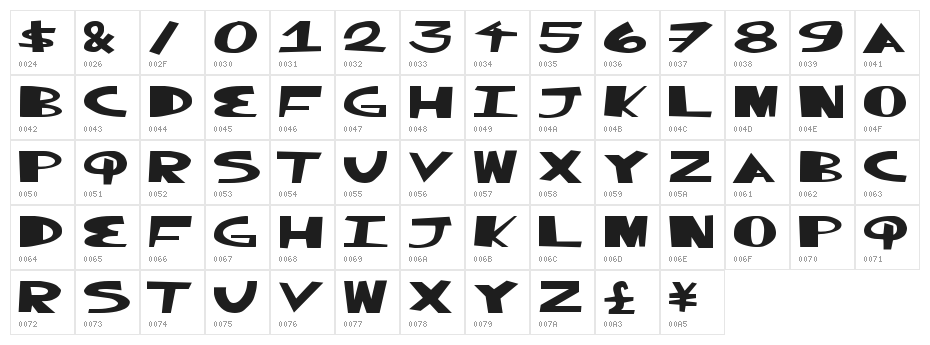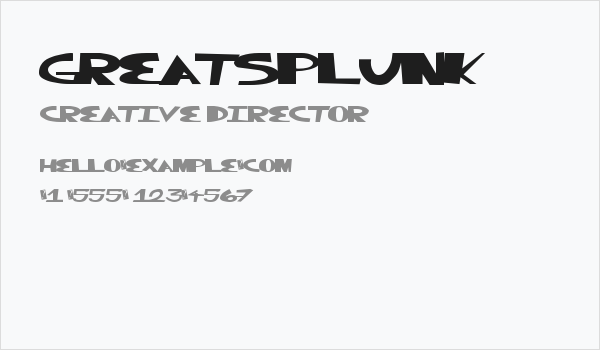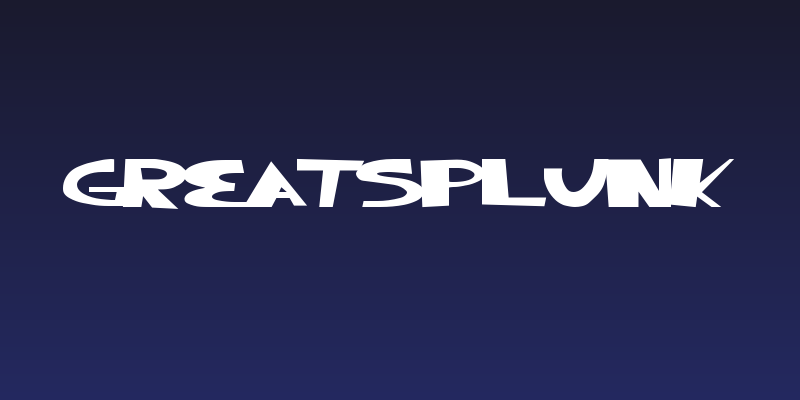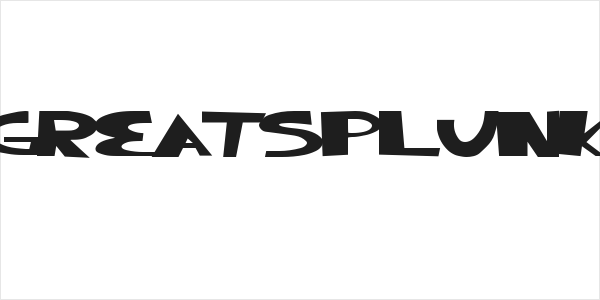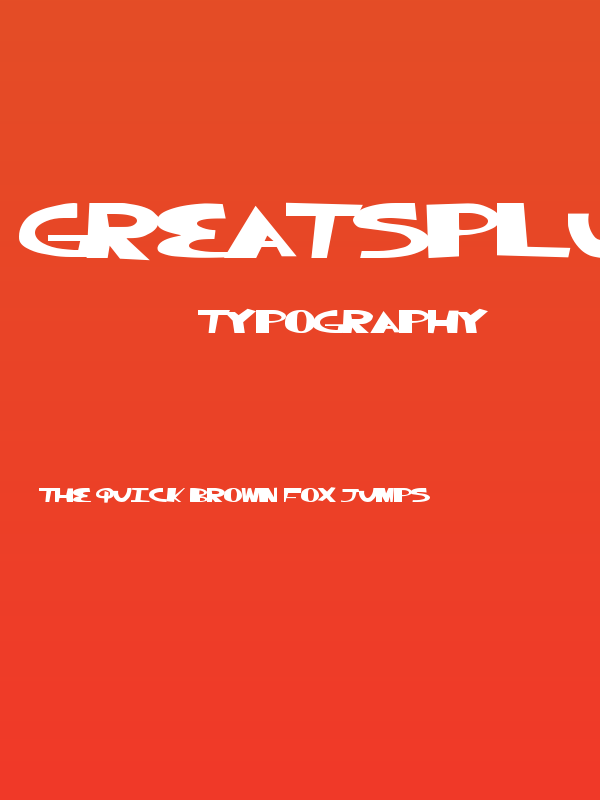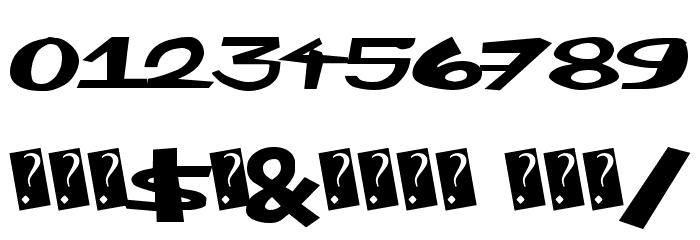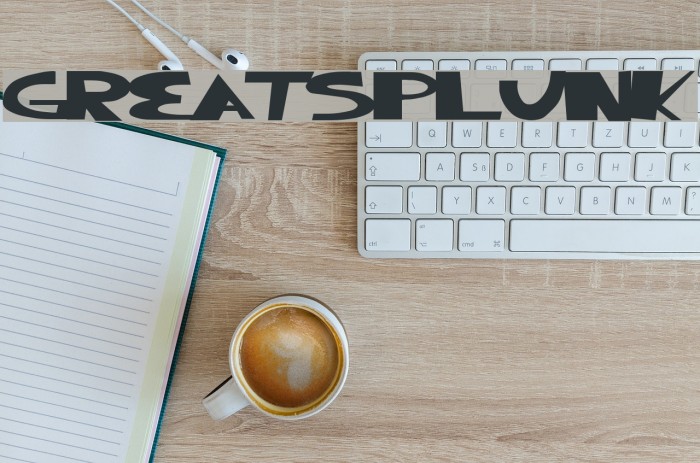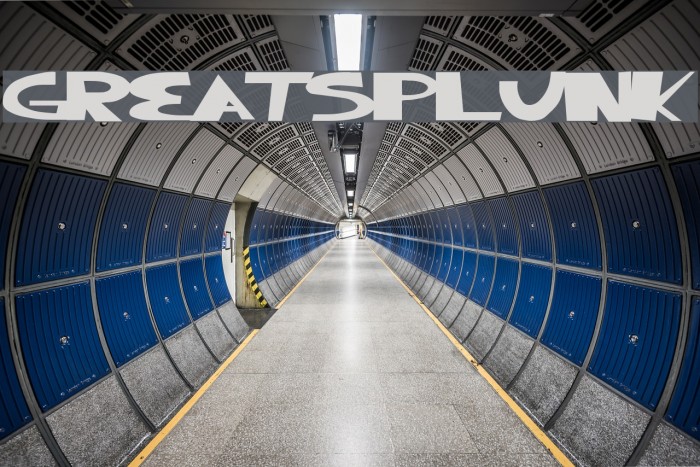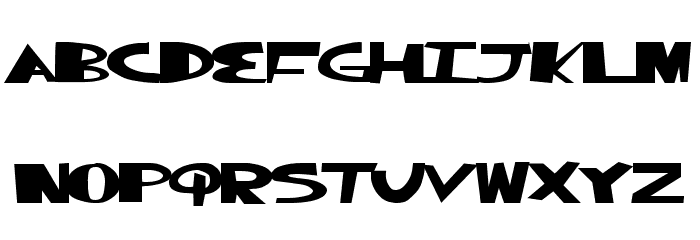
GreatSplunk Font
GreatSplunk Description
This font features a bold and dynamic style with a strong presence. The characters are designed with a unique, playful twist, incorporating elements that create a sense of movement and energy. The uppercase letters are particularly striking, with exaggerated curves and angles that give them a distinctive look. The lowercase letters maintain the same boldness, ensuring consistency throughout the typeface. Numbers and special characters are equally bold, with a creative flair that makes them stand out. This font is ideal for projects that require a strong visual impact and a touch of creativity.